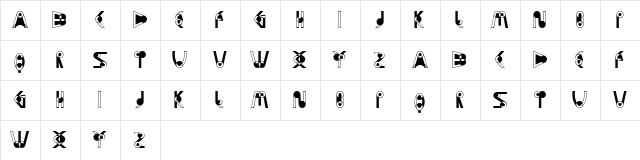
Kikundi Regular
Design Context for Kikundi Typeface
Kikundi is a composed and adaptable typeface that performs quietly and consistently across a wide range of design contexts.